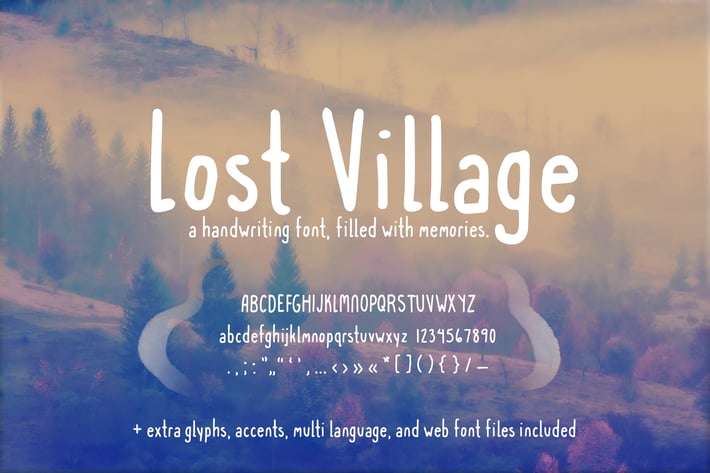
Lost Village Handwriting Font (+ Web Fonts)
Introducing Lost Village, a handwritten font. If you're looking for handwriting aesthetic fonts, this one might be right up your alley. It's hand drawn: a casual font, perfect if you're looking for a pen font, a simple natural handwriting font, a thin brush font, or you just fancy the organic vibe of an ink font.
Every letter was drawn by me. I like different fonts, especially ones that evoke different feelings. For this one, I wanted to create a lonely, old feeling, like from an old note or letter. It's kind of a long font though; check out some of the ascenders.